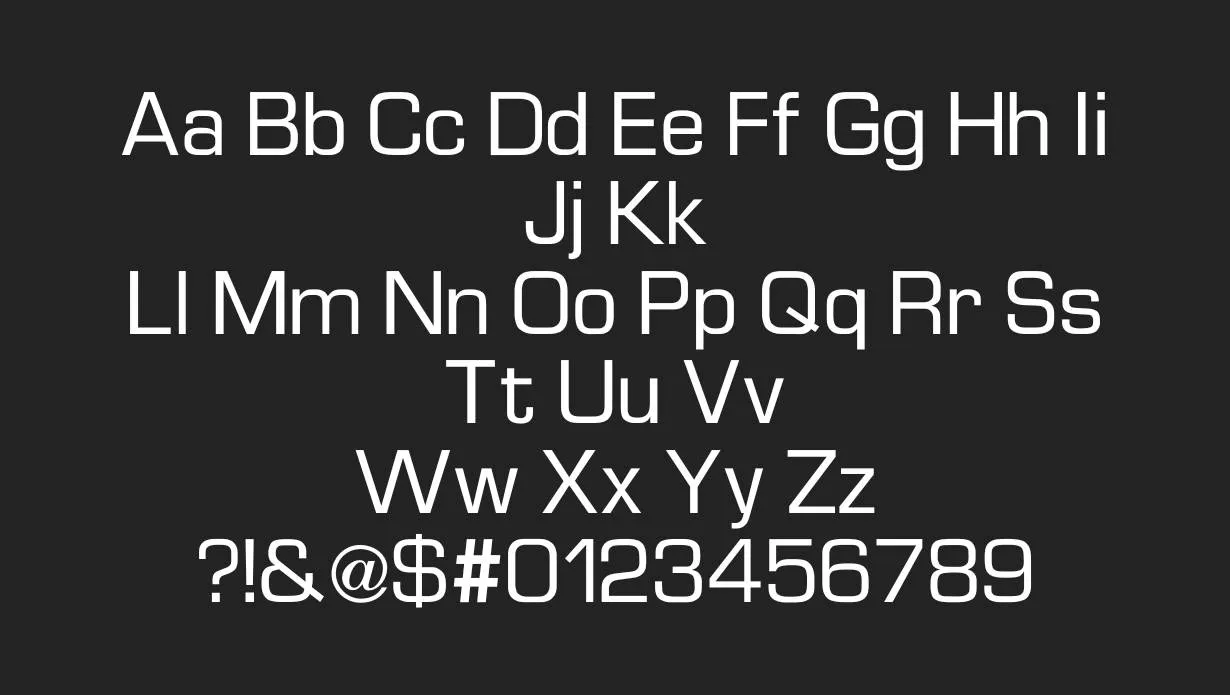
Euro Technic Font is a typeface with a contemporary and technical design. It’s commonly used in tech-related design projects, web design, and digital interfaces.
The font’s clean lines and modern appearance help convey a sense of innovation and efficiency in design work. The typeface family’s broad range of language support makes it an excellent companion for decorative fonts such as SF diego sans font, resulting in a harmonious and visually appealing combination.